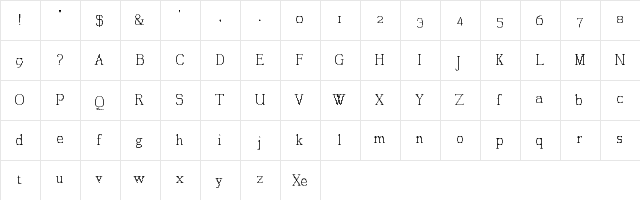
xe Dogma Regular
| Designer | xenophilius |
Design Context for xe Dogma Typeface
xe Dogma is a composed and adaptable typeface that performs quietly and consistently across a wide range of design contexts.